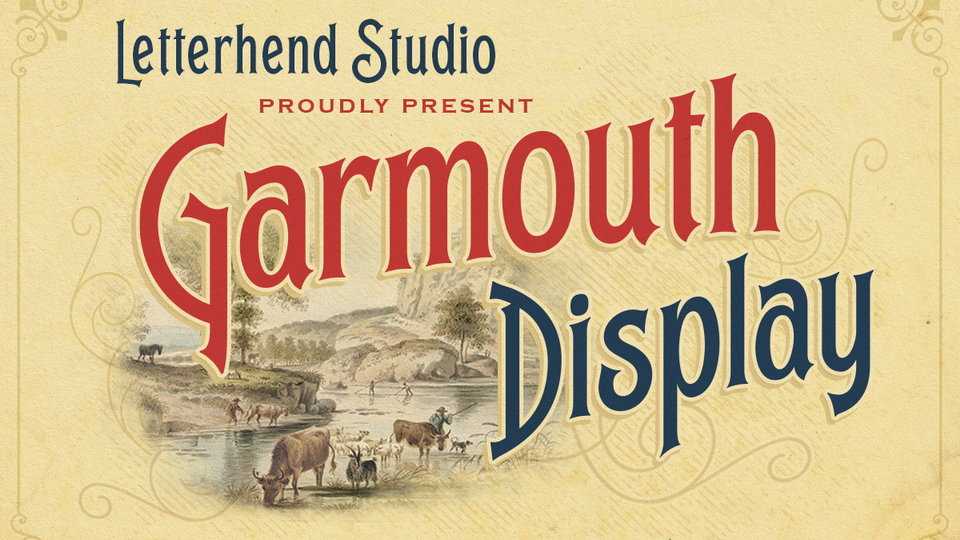
Download Garmouth Display font, a unique serif typeface with a vintage feel, inspired by Art Nouveau signages. Garmouth Display has a classy and elegant look that can be used for logos, branding, posters and more.